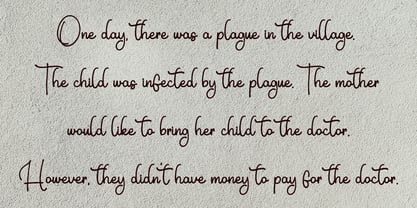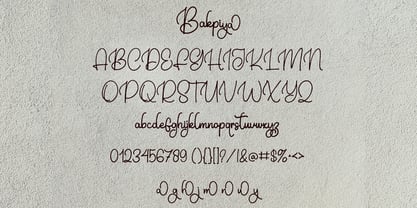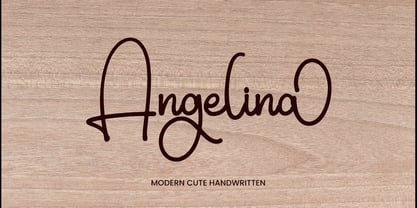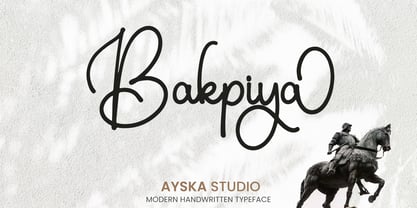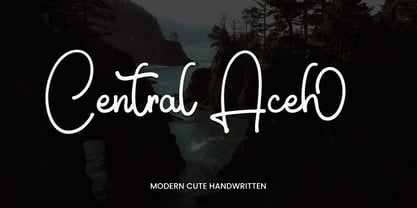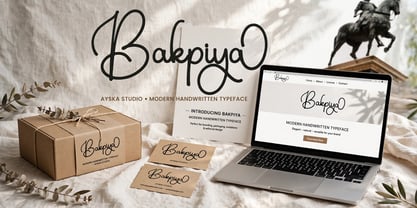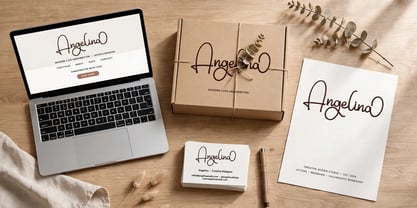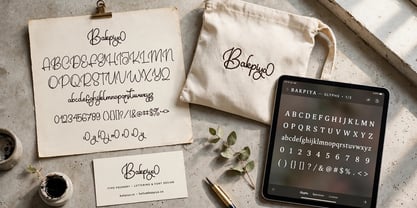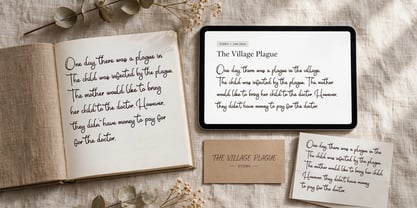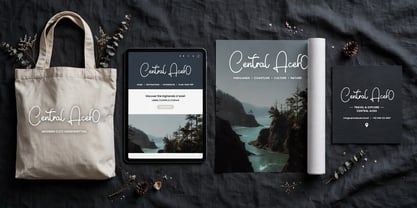
Bakpiya
La famille de polices Bakpiya a été conçue par Dhoni Trihatmoko et publiée par Ayska. Bakpiya contient 1 styles.
Bakpiya is a clean & casual script font, It can be used for various creations that require a personalized, genuine touch. Fall in love with this font and explore its endless possibilities. Crafted with unstructure, this font is designed to add a personalized and human touch to your work, making it stand out in a digital uniformity